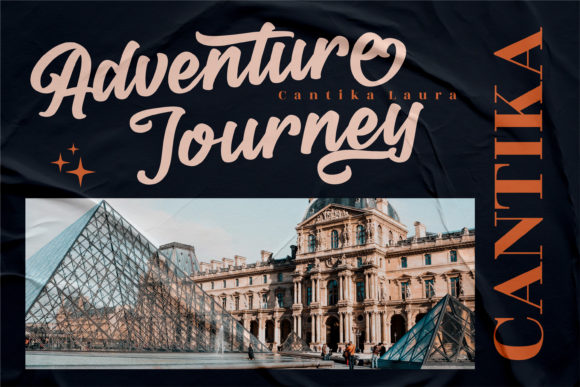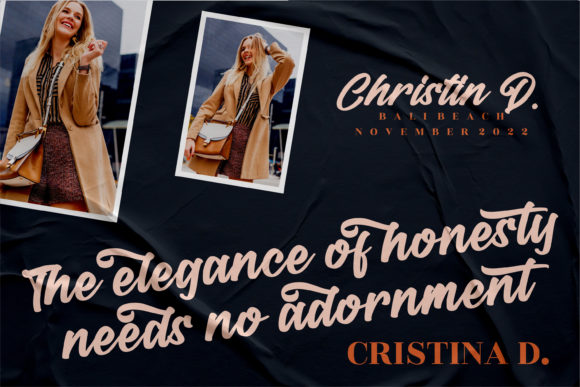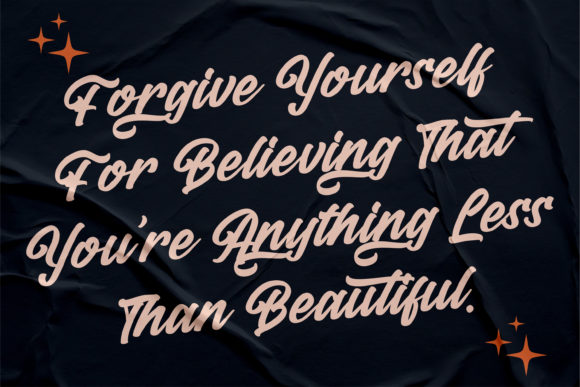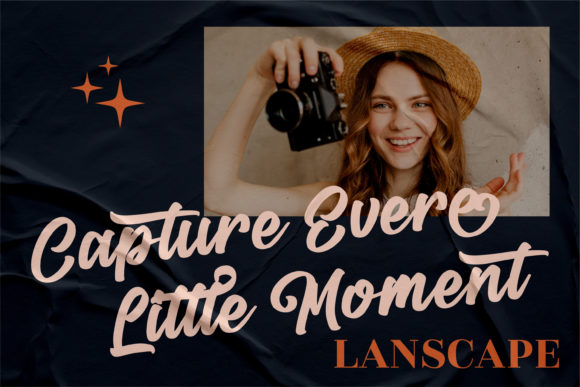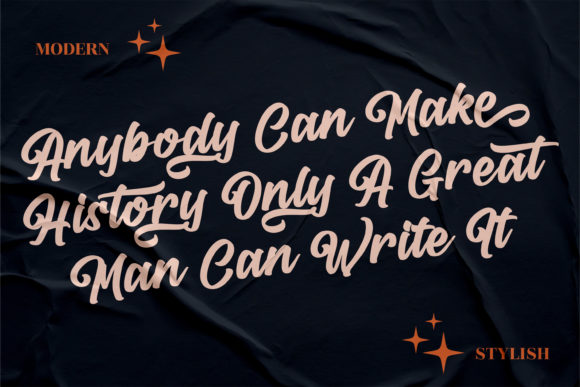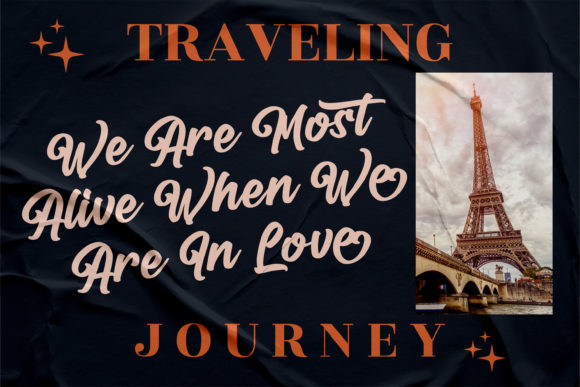
Introduction to Rentrick Kentack Font
As a designer, have you ever found yourself stuck on the perfect font for a project? Maybe you’re crafting a wedding invitation that requires a touch of elegance, or creating a logo that demands a personal style. I’m sure you’ve spent hours browsing through font collections, only to settle for something that’s almost, but not quite, right. Well, today we’re excited to introduce you to a game-changing design resource that’s sure to elevate your creative projects: the Rentrick Kentack Font.
This beautiful, handwritten font is perfect for designers who want to add a touch of sophistication to their work. With Rentrick Kentack Font, you can create stunning designs that require a personalized style, from wedding invitations and thank you cards to logos and greeting cards. And the best part? It’s PUA encoded, making it easy to access all of the glyphs and swashes you need to bring your designs to life.
Key Features of Rentrick Kentack Font
- Transparent background for seamless integration into various designs
- Unique, modern design aesthetic suitable for a wide range of creative applications
Honest Review: Rentrick Kentack Font
I recently stumbled upon the Rentrick Kentack Font, and I must say it’s a unique addition to my design resources. The font’s quirky design and vintage vibe make it perfect for creative projects that require a touch of nostalgia.
- ✨ High-quality design: The Rentrick Kentack Font is well-crafted, with smooth lines and a consistent style.
- ✨ Versatile: This font can be used for a wide range of creative projects, from logos to posters.
- ✨ Transparent background: This font comes with a transparent background, making it easy to layer over images or other design elements.
- ⚠️ Limited language support: The Rentrick Kentack Font only supports Latin-based languages, which may limit its use in certain projects.
- ⚠️ Not suitable for small text: The font’s unique design can make it difficult to read in small text sizes.
Overall, I’m impressed with the Rentrick Kentack Font. Its unique design and high-quality construction make it a valuable addition to any designer’s toolkit. While it has some limitations, it’s a great resource for creative projects that require a touch of nostalgia and a vintage vibe.
The Rentrick Kentack Font is perfect for creating social media graphics, presentations, and documents that require a unique and eye-catching font. Use the font to add a touch of creativity to your designs and stand out from the crowd.